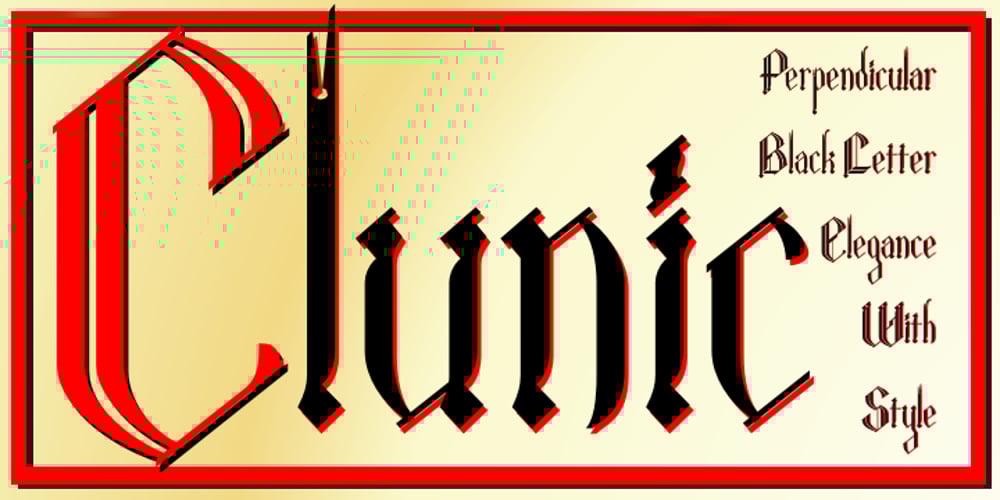
Clunic Font Family was designed by published by Greater Albion Typefounders. Clunic contains 1 styles and family package options. Clunic is a Blackletter font in the best traditions of Victorian Gothic revival—that is to say aesthetically marvelous but no historical basis whatsoever. The design combines the perpendicular character of medieval manuscripts with modern legibility and a healthy respect for calligraphic principles. There are alternate large and small forms of some glyphs. Clunic is ideal for use on certificates, themed invitations, posters, headings, initial capitals or sign-writing with an historic theme.